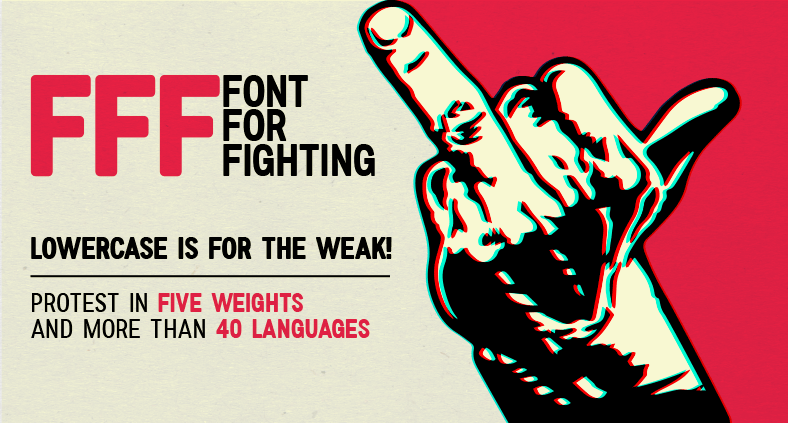
Today. A world premier. A type face created with the sole purpose of helping people to fight. because we all know that a “NO” written in Comic Sans is like saying that you are lactose intolerant while stuffing a french cheese in your face. Say NO in a new and different way. Say STOP to the wrong use of fonts. Fight for everything you want with the proper font. Fight for the all the reasons you have, wrong or right. And because we believe that everybody has the right to fight, we left it for FREE*. We are FFF. We are designer. We don’t fight, we change. *This trial font is TOTALLY FREE for NONCOMMERCIAL USES, especially for RIGHTFUL DEMONSTRATIONS Want to fight a commercial fight? Purchase a commercial use license here: https://www.creativefabrica.com/product/font-for-fighting/ --------------------------- If you have questions, comments, suggestions or you just want to argue with someone, please email at info@fontforfighting.com |